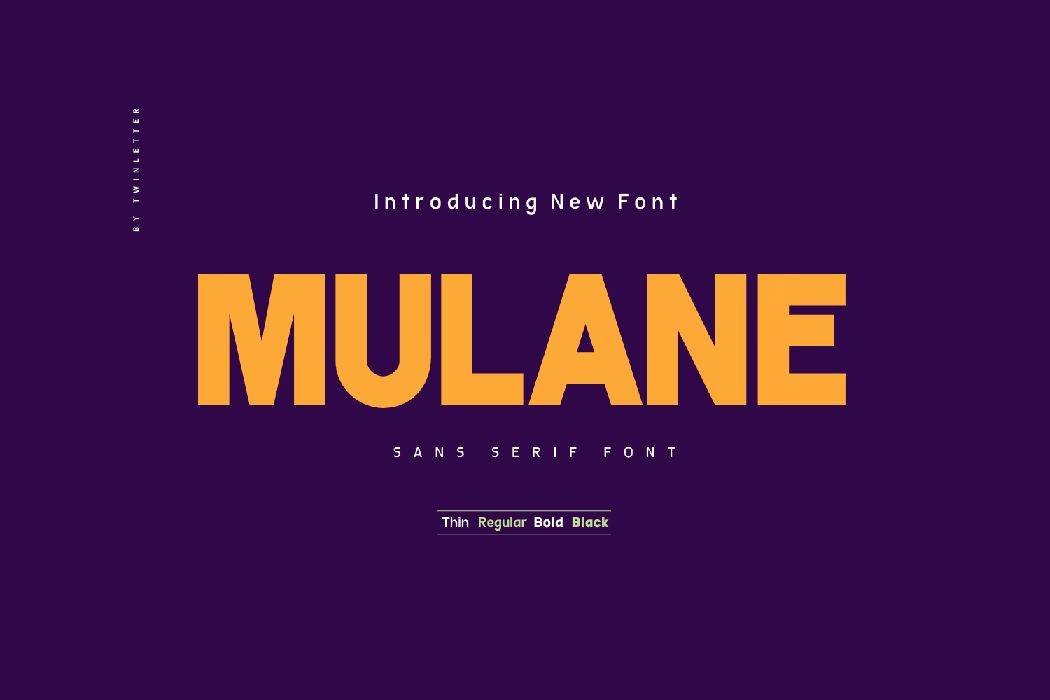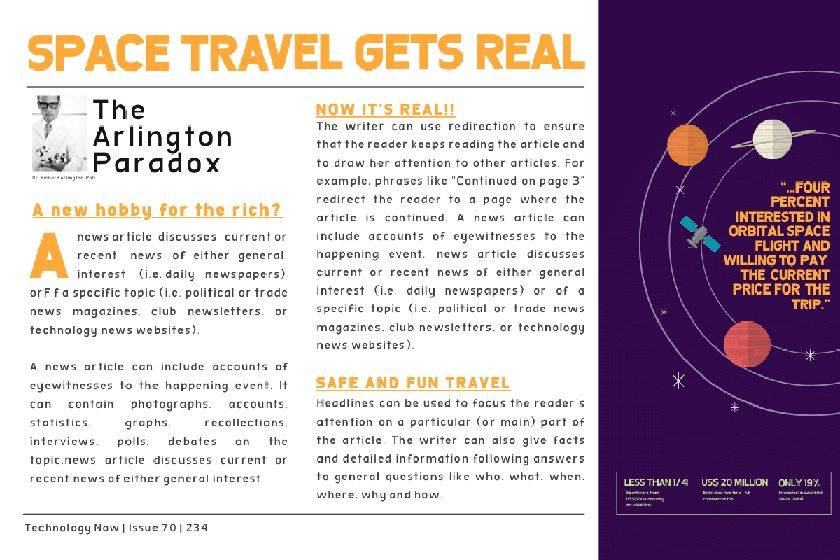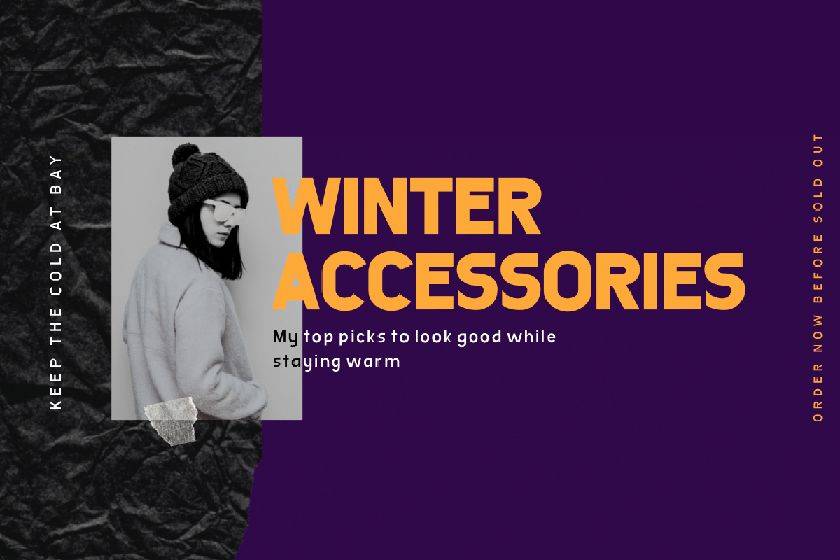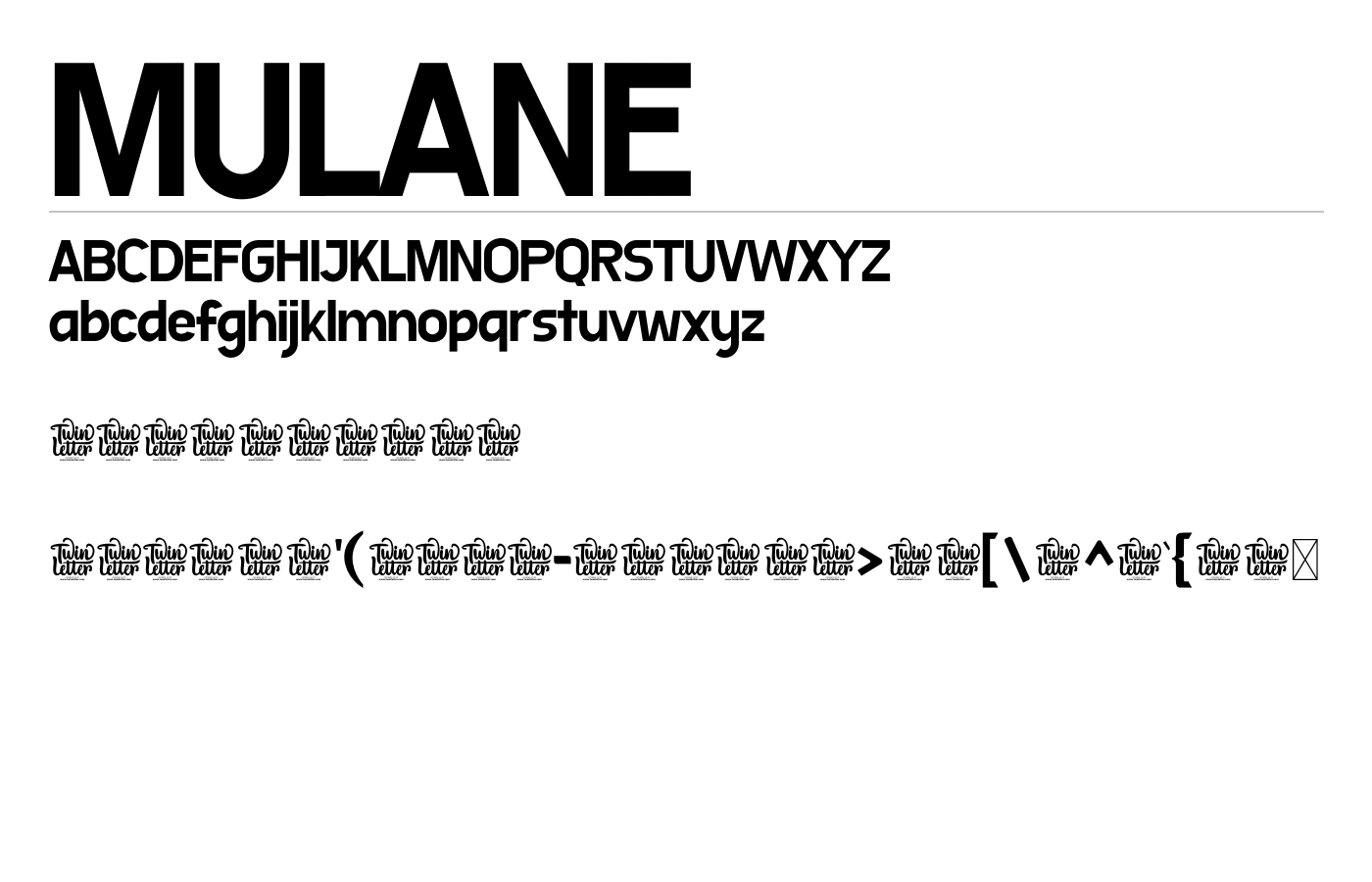
Mulane is a bold, modern sans serif font with a strong, condensed structure that commands attention. Its clean lines and uniform stroke weight give it a confident and contemporary feel, making it perfect for headlines, logos, and branding that need a powerful and straightforward style. This font works well in designs that require high impact and readability without unnecessary decoration.
| Font family | Mulane Font |
| Designer | Hakim |